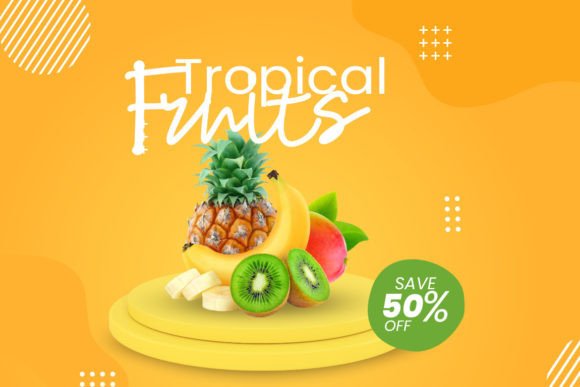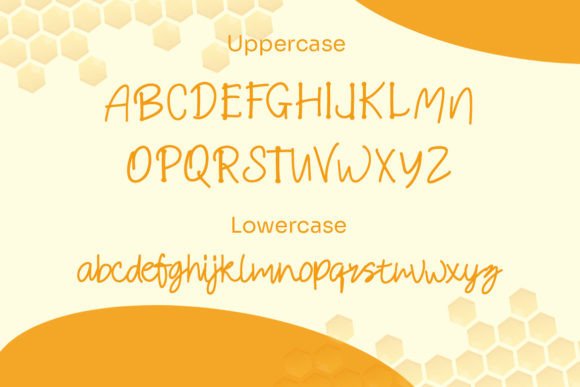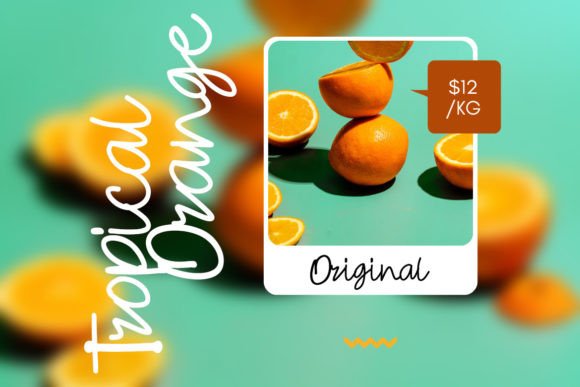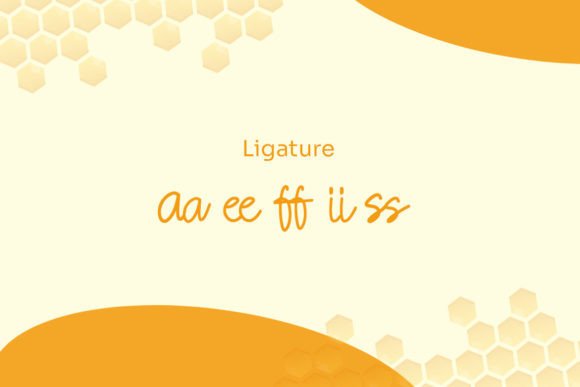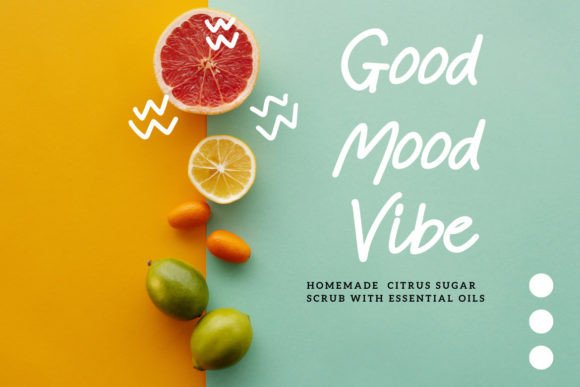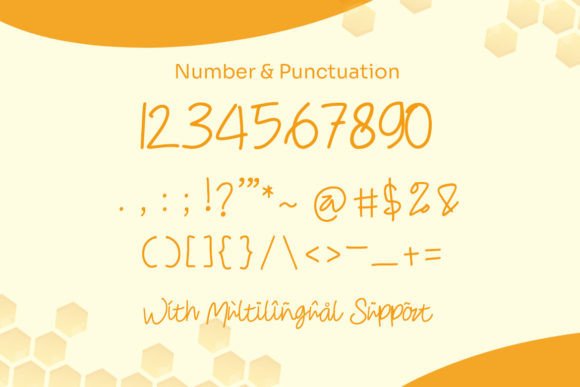
Briivaty Font: The Ultimate Choice for Fun and Cheerful Designs
Are you looking for a font that can add a touch of happiness and positivity to your designs? Look no further than Briivaty Font! This fun and cheerful handwritten font is perfect for creating joyful and celebratory designs that will leave a lasting impression on your audience. In this article, we’ll dive into the world of Briivaty Font and explore its features, benefits, and uses.
What is Briivaty Font?
Briivaty Font is a modern handwritten font that exudes positive energy and happiness. Its rounded and playful letterforms create a sense of joy and celebration, making it an ideal choice for various design projects. Whether you’re designing a birthday card, party invitation, or a social media post, Briivaty Font is the perfect choice to add a touch of whimsy and fun.
Key Features of Briivaty Font
- Rounded and Playful Letterforms: Briivaty Font features rounded and playful letterforms that create a sense of joy and celebration.
- Fun and Cheerful: The font radiates positive energy and happiness, making it perfect for festive design projects.
- Handwritten: Briivaty Font has a handwritten feel that adds a personal touch to your designs.
- Modern: The font has a modern look and feel that will make your designs stand out.
Benefits of Using Briivaty Font
So, why should you choose Briivaty Font for your design projects? Here are some benefits of using this amazing font:
- Adds a Touch of Happiness: Briivaty Font adds a touch of happiness and positivity to your designs, making them more engaging and memorable.
- Perfect for Festive Designs: The font is ideal for festive design projects such as birthday cards, party invitations, and holiday greetings.
- Versatile: Briivaty Font can be used for various design projects, including social media posts, flyers, brochures, and more.
Uses of Briivaty Font
Briivaty Font is a versatile font that can be used for various design projects. Here are some ideas to get you started:
- Birthday Cards: Create custom birthday cards with Briivaty Font and add a touch of happiness to the celebration.
- Party Invitations: Design fun and playful party invitations with Briivaty Font and set the tone for a memorable event.
- Social Media Posts: Use Briivaty Font to create engaging social media posts that will grab the attention of your audience.
- Holiday Greetings: Create festive holiday greetings with Briivaty Font and spread joy and cheer.
Tips for Using Briivaty Font
Here are some tips for using Briivaty Font effectively in your designs:
- Pair with Other Fonts: Pair Briivaty Font with other fonts to create a unique and interesting design.
- Use Bright Colors: Use bright and bold colors to complement the playful and cheerful feel of Briivaty Font.
- Experiment with Sizes: Experiment with different font sizes to create visual interest and hierarchy in your designs.
- Keep it Simple: Keep your design simple and clean to let Briivaty Font shine.
Briivaty Font is a fun and cheerful handwritten font that is perfect for creating joyful and celebratory designs. Its rounded and playful letterforms create a sense of joy and happiness, making it an ideal choice for festive design projects. With its versatility, ease of use, and modern look and feel, Briivaty Font is a must-have for designers and crafters. So, go ahead and add a touch of happiness to your designs with Briivaty Font!